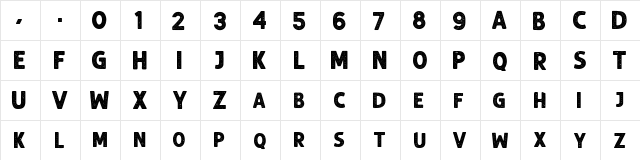
Balbeer Rustic
Design Context for Balbeer Typeface
Balbeer offers clean, dependable letterforms without strong stylistic allegiance, making it a practical choice for designers who need flexibility.
Pro Tip: Use Balbeer in both headline and body roles to test its range before committing to a single application.